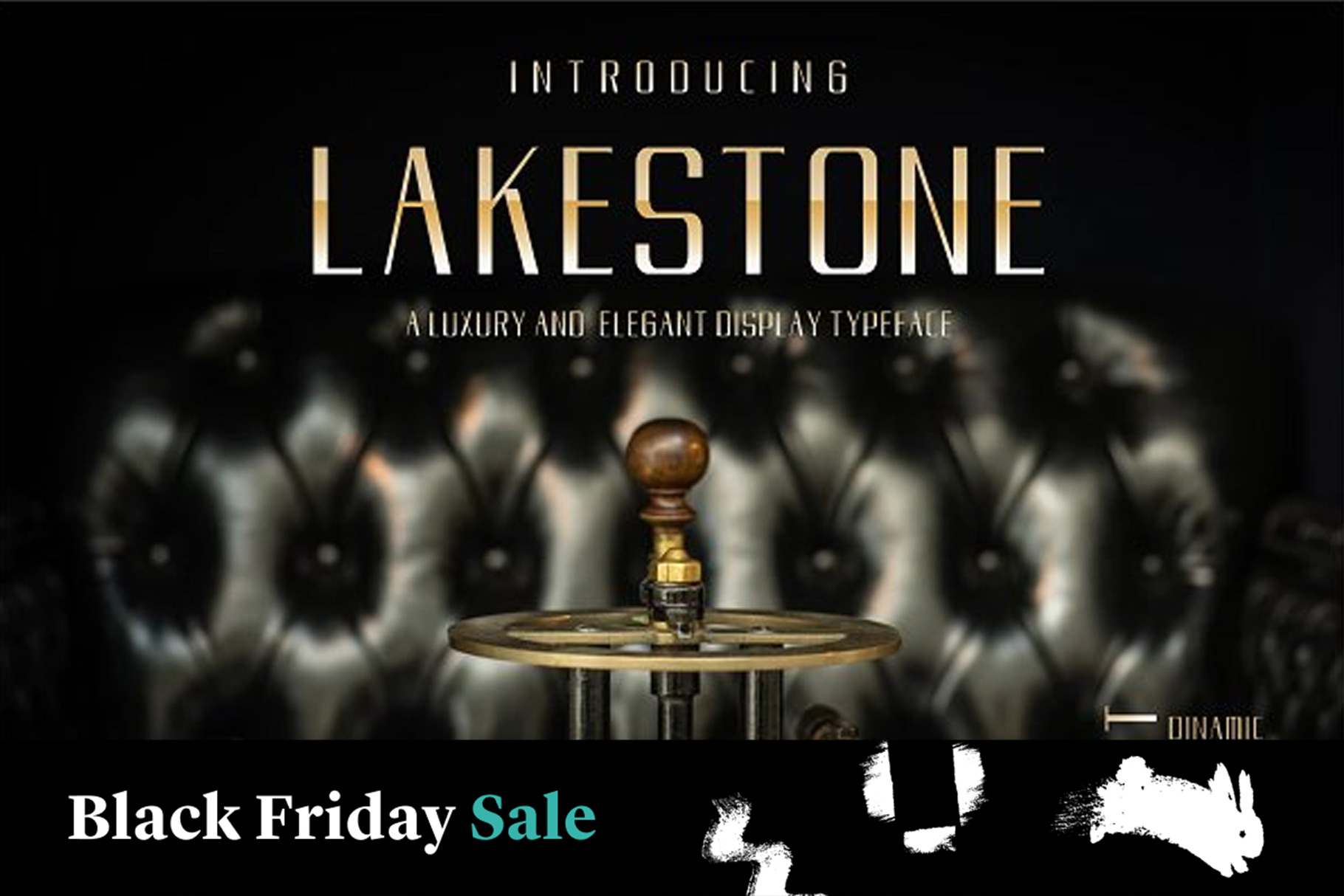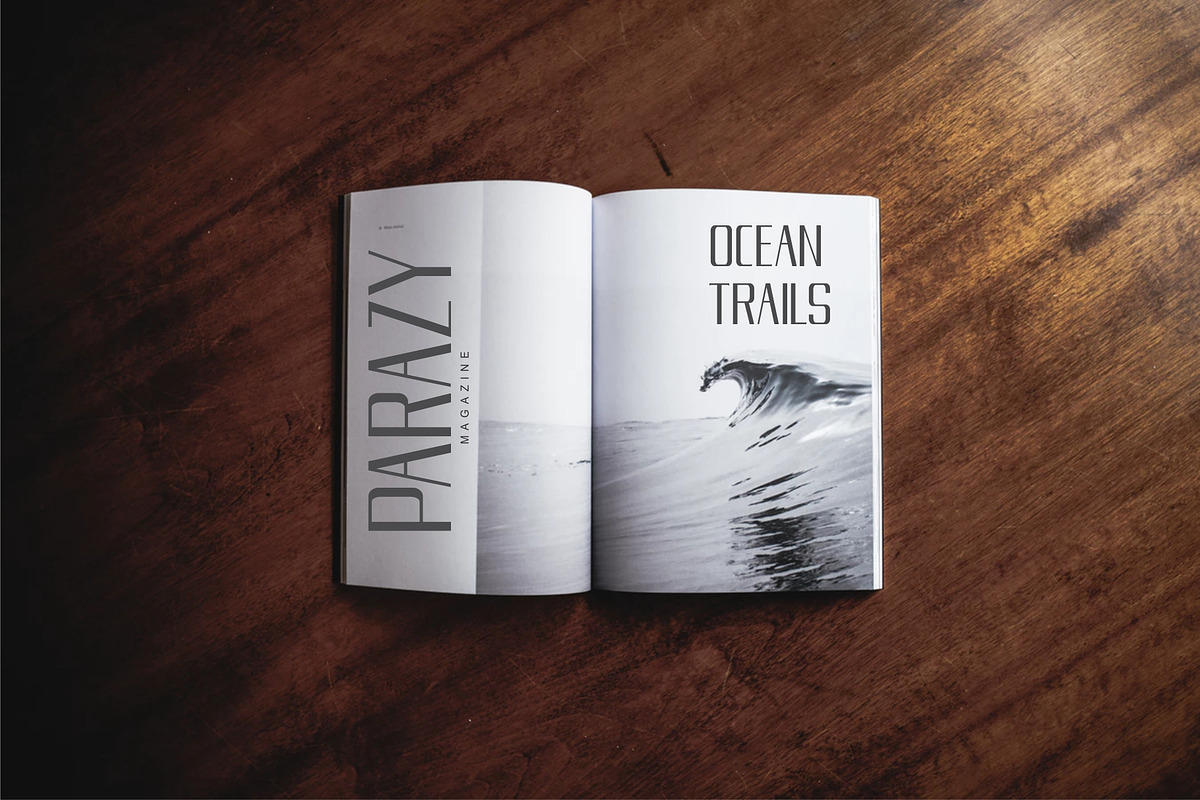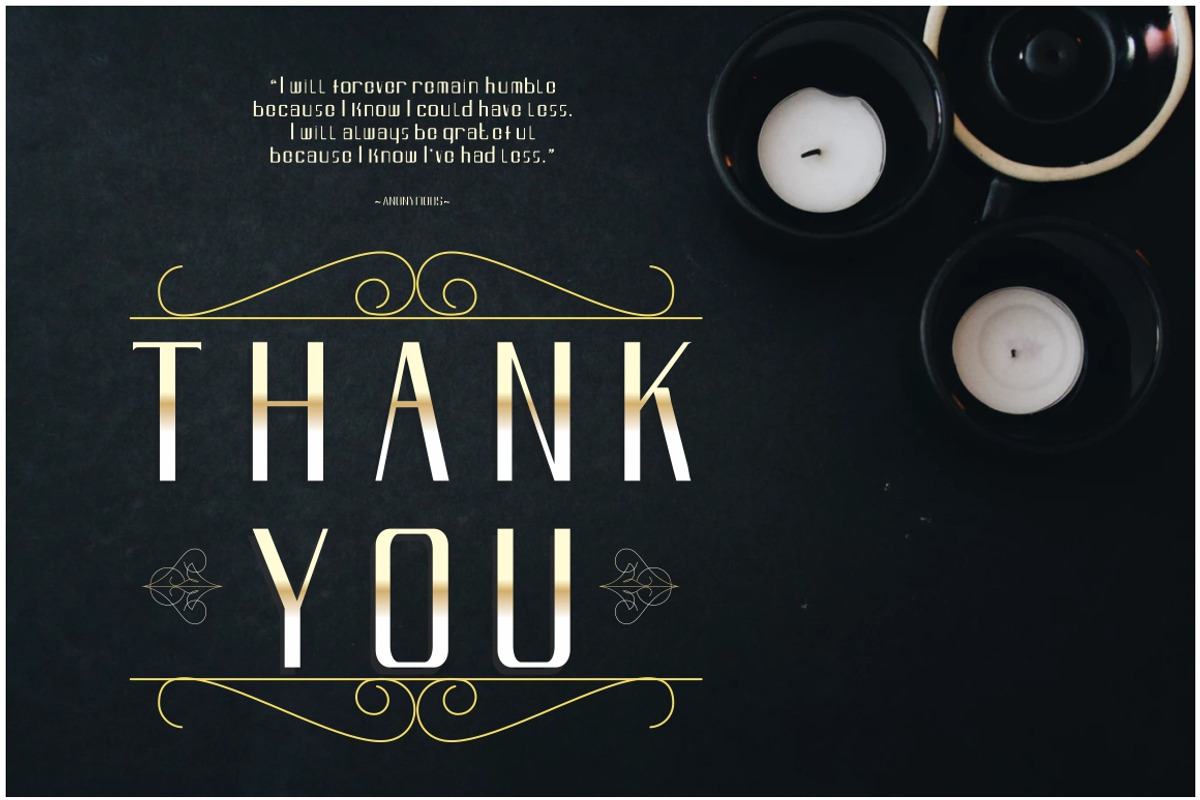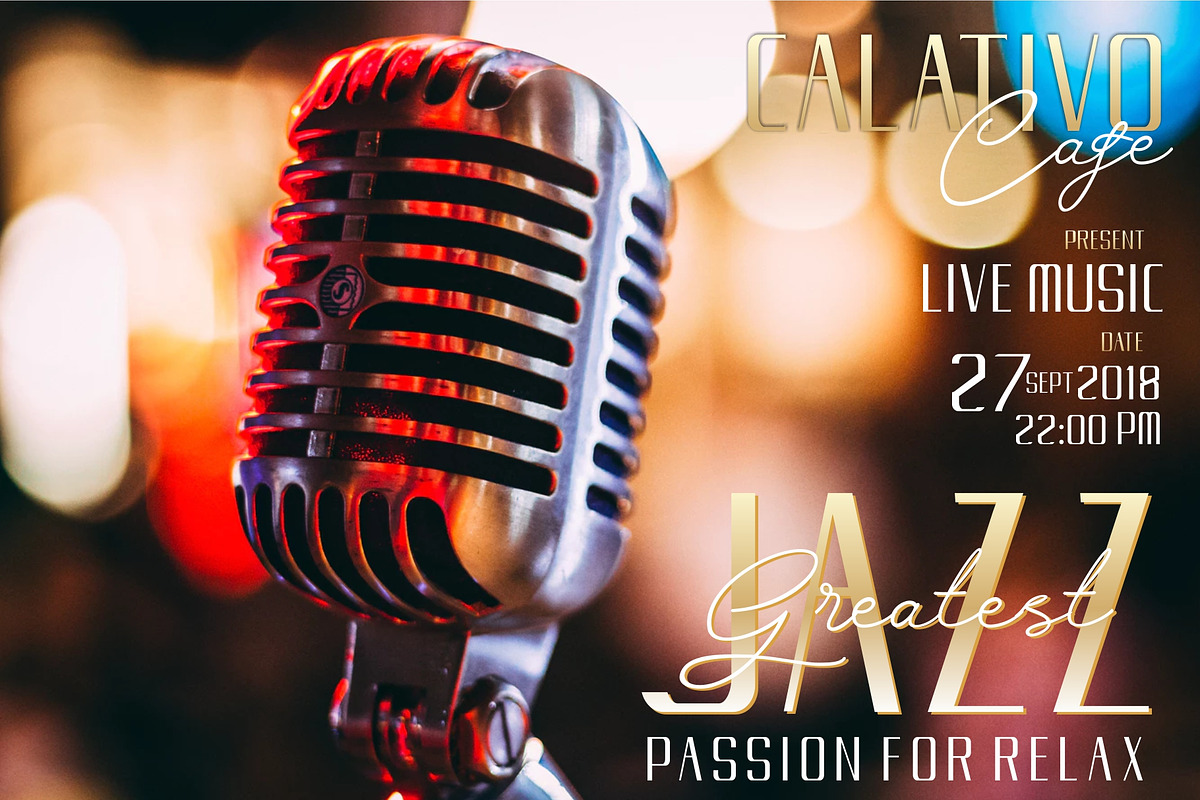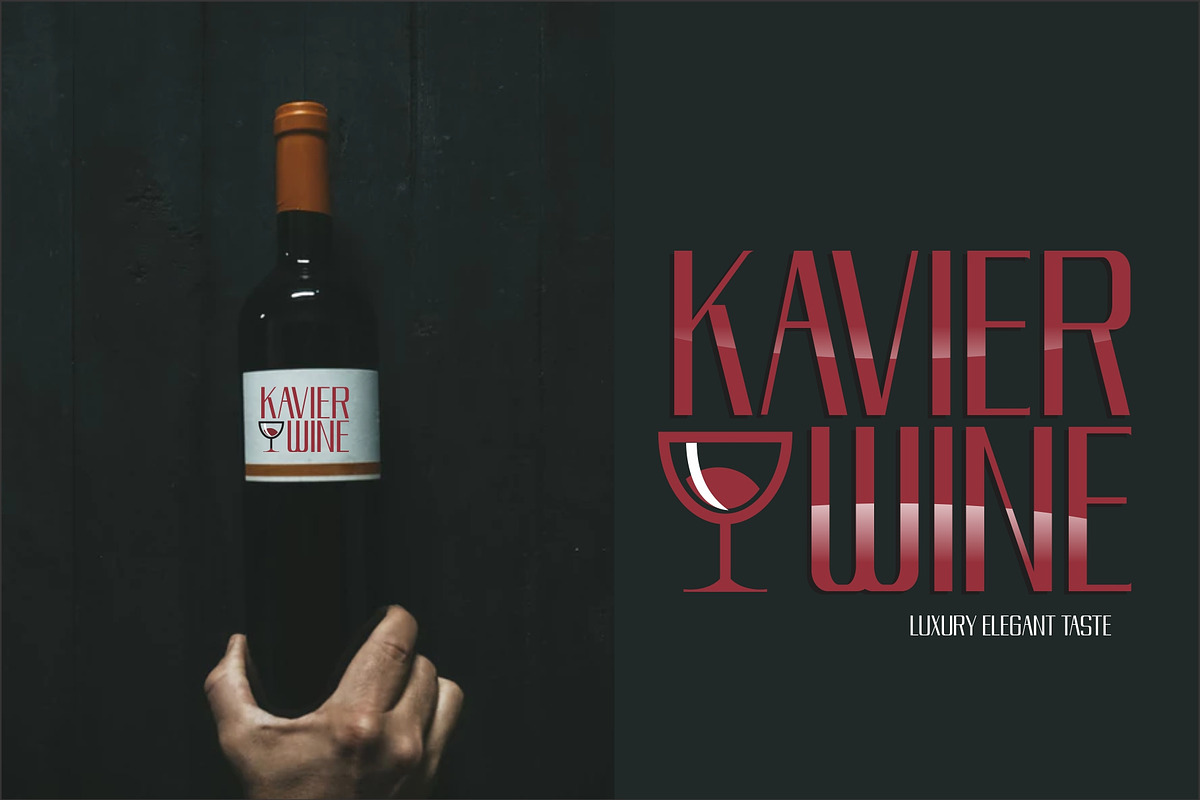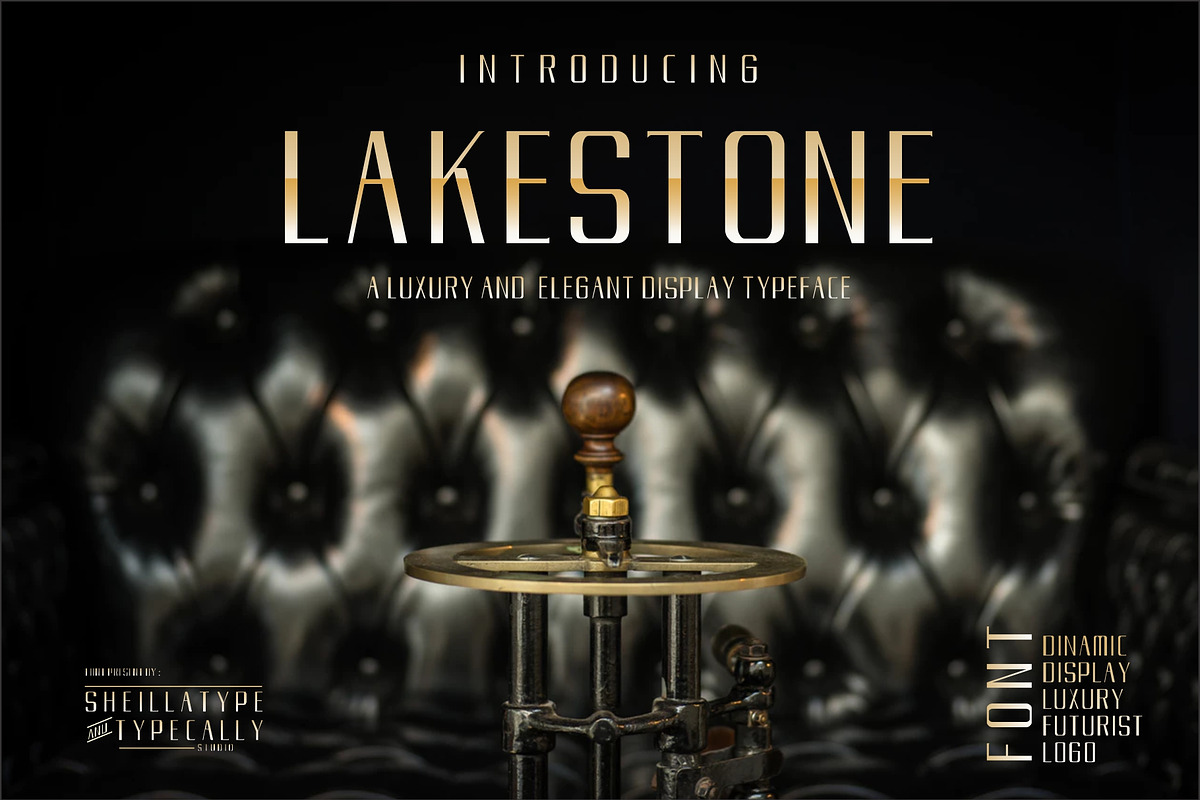
LAKESTONE luxury and elegant font
LAKESTONE is a combination of modern serif and futuristic, the impression in this font is the style of luxury, clean and sharp, for your design needs. with Unique accents on each letter it is cool for your selected font in determining your company name and logo.
-Elegant Headlines -Fashion Magazines Covers -Book Covers -Templates And Creative Displays -Logo Designs
It pairs well with other handwritten, script, serif an